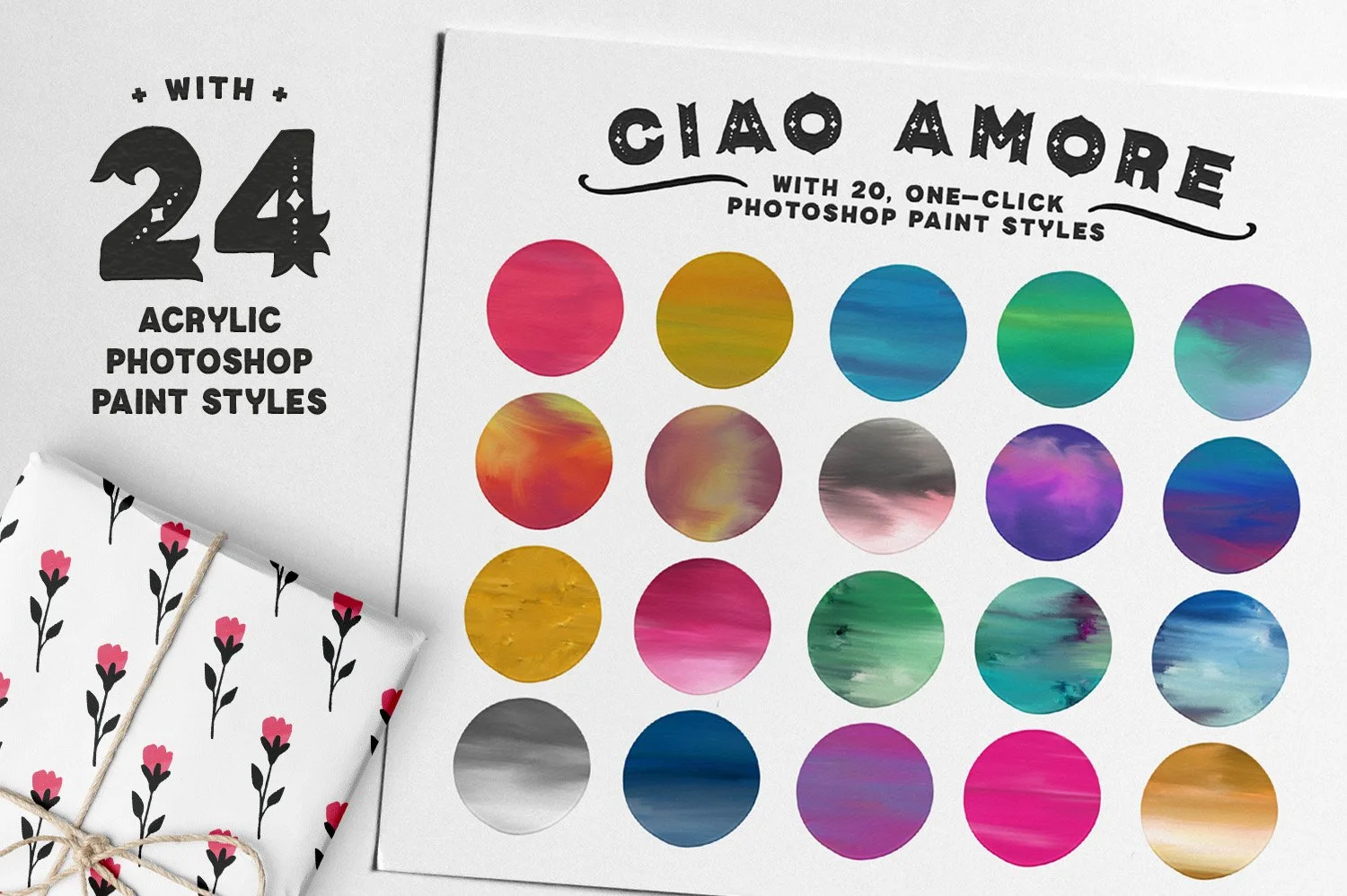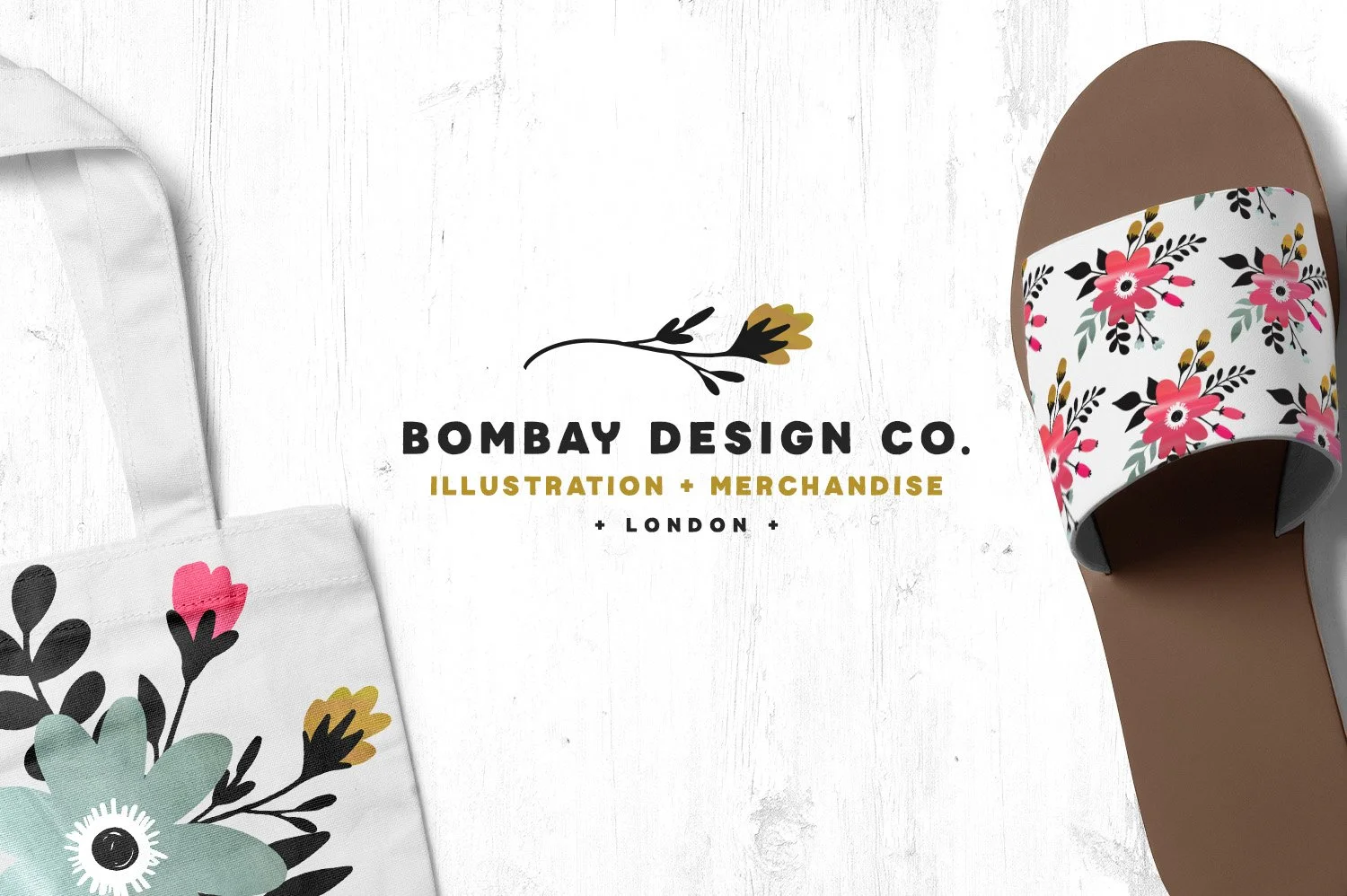
Ciao Amore Decorative Font Kit
Introducing Ciao Amore! A decorative lettering tool kit that helps you create gorgeous typography, floral designs, packaging, greeting cards, logos and TONS more - all with with a unique, decorative flair! With over 200 hand-drawn elements, 3 versatile fonts, and a set of acrylic Photoshop Styles, the sky's the limit on design and color! So don't be shy, this kit wants you too. 😉
Ciao Amore Solid (OTF & TTF) - A beefy, hand-drawn sans serif typeface, with imperfect edges and plenty of hand-lettered charm.
Ciao Amore Decorative (OTF & TTF) - A decorative, hand-drawn version with spurred ends for a casual, yet modern feel.
Ciao Amore Decorative Filigree (OTF & TTF) - It's Ciao Amore Decorative with some subtle, internal filigree. Just in case you want to spice up your type!
Over 200 hand-drawn floral and decorative graphic elements, so you can really make your lettering projects POP! (AI, EPS and PSD Files Included. NO PNGS).
Language Support Included: AÀÁÂÃÄÅCÇDÐEÈÉÊËIÌÍÎÏNÑOØÒÓÔÕÖUÙÜÚÛWẂŴẄẀYÝŸỲŸÆŒßÞþ
Please note that these fonts are NOT smooth. They were all hand-drawn, so they have subtle, textured edges to mimic hand-lettering. I'm not sure how well these will do in Cricut and Silhouette, but you're welcome to give it a shot and report back. 😉